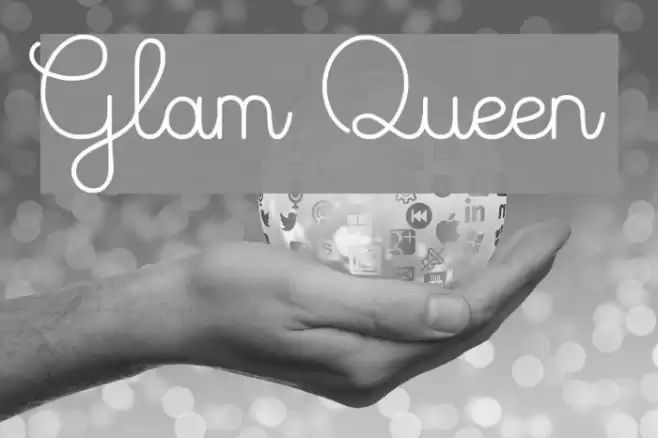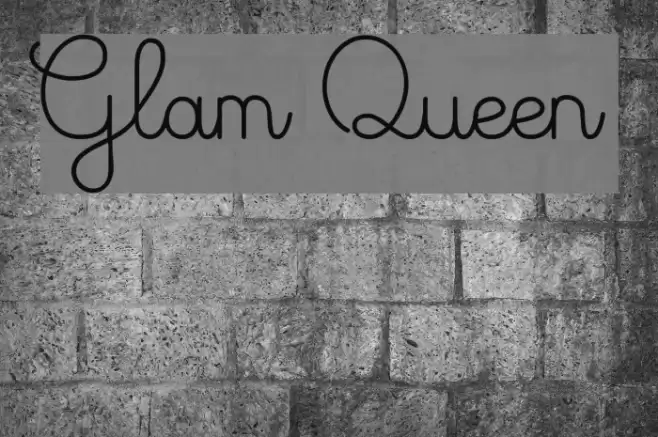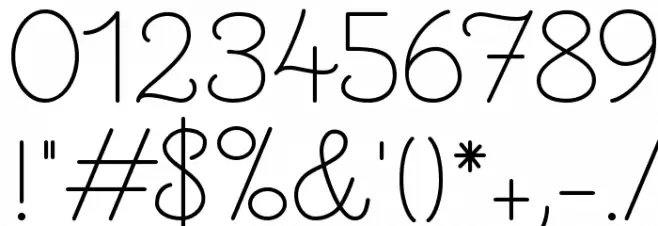
Glam Queen Font
Glam Queen Description
This elegant script font features a flowing, cursive style that combines both uppercase and lowercase letters with a consistent, smooth stroke. The characters are interconnected, creating a seamless and sophisticated appearance. The font maintains a uniform thickness throughout, offering a clean and polished look. Its playful yet refined design makes it suitable for a variety of creative applications. The numerals and special characters are crafted with the same attention to detail, ensuring a cohesive aesthetic across all elements.
A flowing, cursive script font with interconnected characters and a polished look from Uncategorized fonts.
- Proposed Projects: Ideal for wedding invitations, greeting cards, branding, and elegant logo designs.
- Overall Style: Elegant
- Use Case: Logos, Invitations, Decorative text